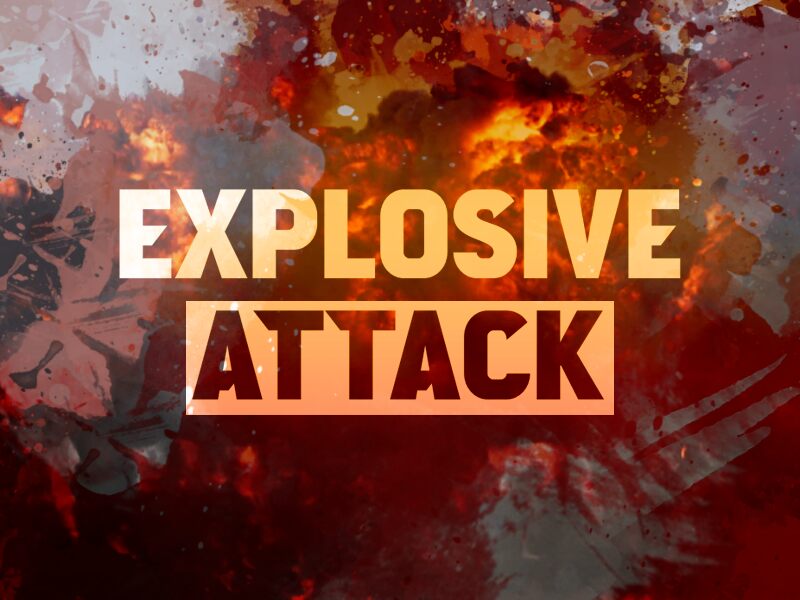
Are you looking for a font that will make your next project stand out? Look no further than Explosive Attack, the bold and modern display font designed by wep. With its strong lines and eye-catching style, this typeface is perfect for projects that need to make a statement. Use it on posters, book covers, or even in logos to give your design an edge. Whether you're looking to add some excitement to a marketing campaign or want to create a bold new brand identity, Explosive Attack is the perfect choice for any project that demands attention.
Explosive Attack
Wahyu Eka Prasetya